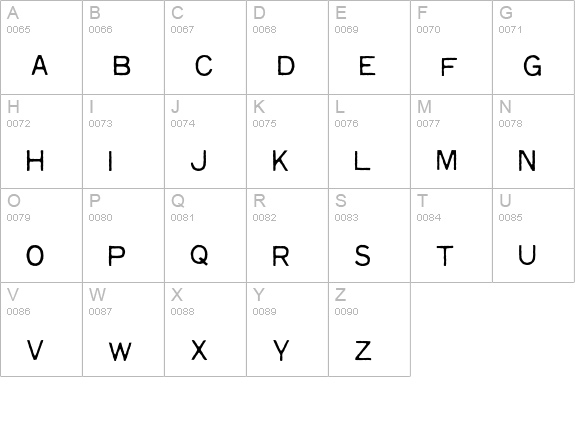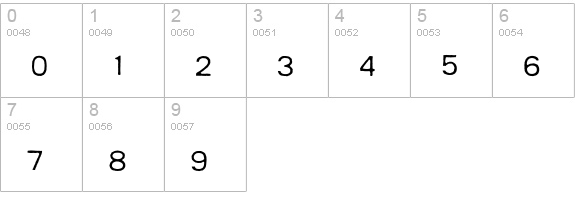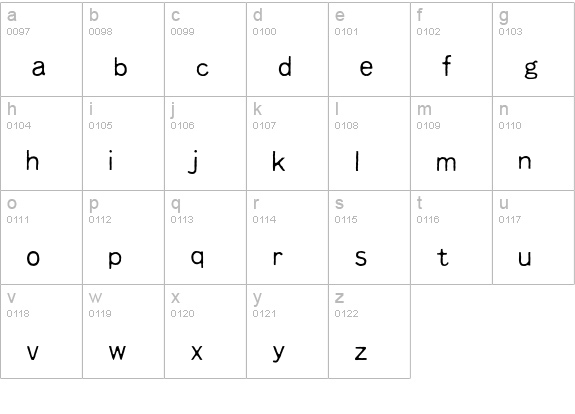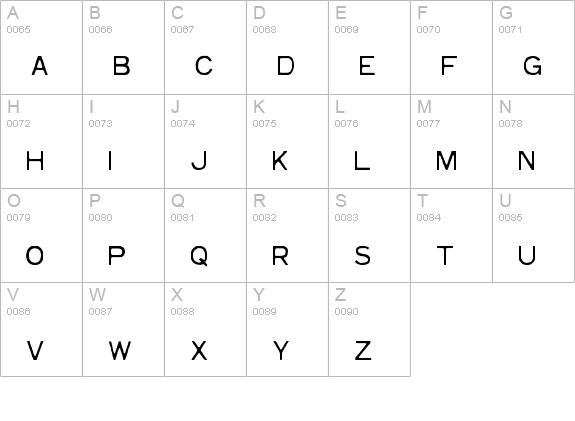
FaxfontFine Font Details
Introducing FaxfontFine, a sleek and stylish font that exudes elegance and sophistication. This modern typeface is perfect for creating eye-catching designs that demand attention. With its clean lines and sharp angles, FaxfontFine is ideal for a wide range of projects, from logos and branding to marketing materials and web design. What sets FaxfontFine apart is not only its striking appearance but also the fact that it is free to download. That's right, you can get your hands on this stunning font without breaking the bank. Simply head over to FontsMarket.com to access this versatile typeface and start incorporating it into your projects today. Whether you're a professional designer looking to add a new font to your collection or a hobbyist seeking to elevate your creative projects, FaxfontFine is sure to impress. Don't miss out on the opportunity to enhance your designs with this exceptional font that combines both style and affordability. Download FaxfontFine for free now and let your creativity soar.